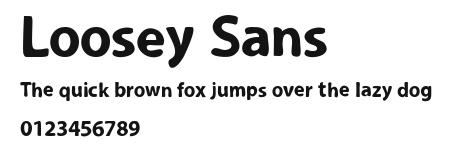
Loosey Sans.otf is a modern, elegant sans-serif font designed for ultimate readability and visual harmony. Perfect for branding, headlines, web design, and print materials.